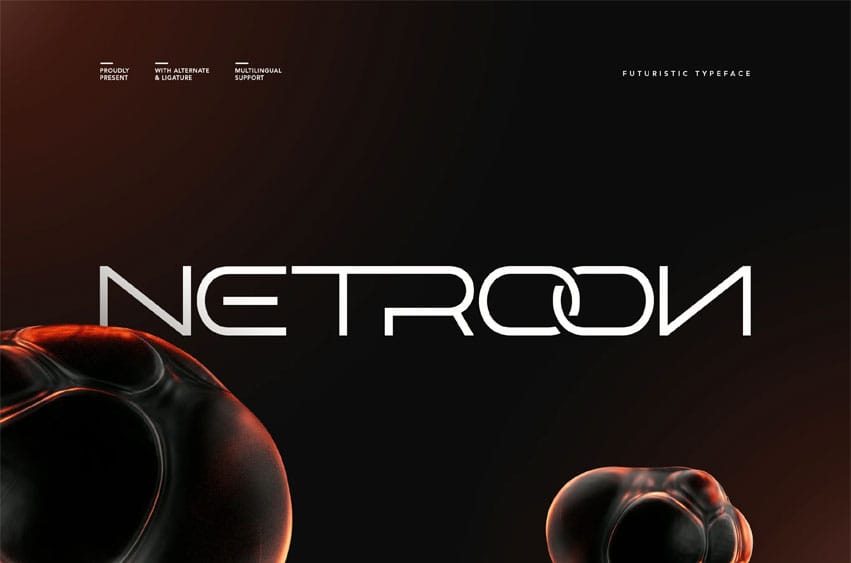
Netroon Font is a sleek, futuristic typeface designed to bring a cutting-edge aesthetic to your projects. With its clean lines, innovative letterforms, and unique ligatures, Netroon embodies the spirit of modern technology and forward-thinking design. Perfect for sci-fi posters, digital interfaces, branding, and tech-inspired visuals, this font offers versatility while making a bold visual statement.
- Uppercase alphabet A-Z
- Lowercase alphabet a-z
- Numbers 0-9
- Some punctuation
- Some Alternates and Ligatures
Why Choose Futuristic Netroon?
In a world oversaturated with generic sans-serif fonts, Futuristic Netroon offers a signature visual voice. It captures attention instantly, makes your brand or project look forward-thinking, and helps set you apart from competitors. For designers, studios, and content creators who want their work to feel avant-garde, bold, and future-ready—this font is the perfect tool in your typographic arsenal.